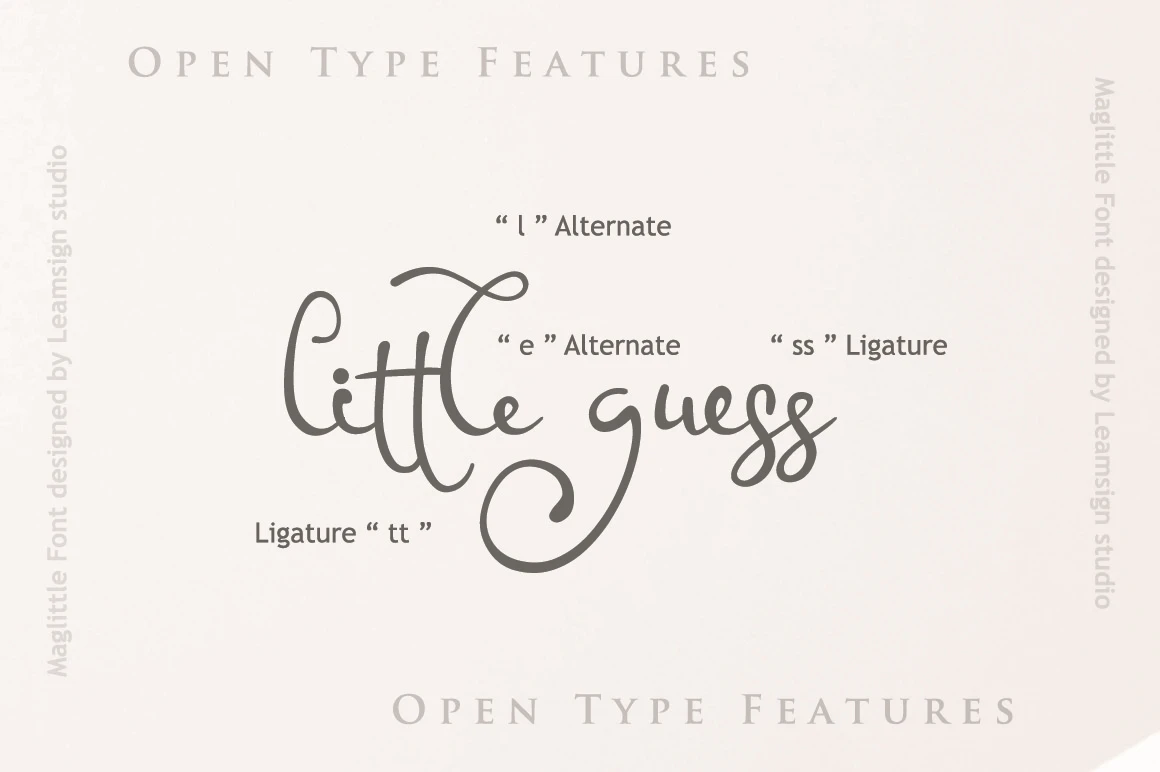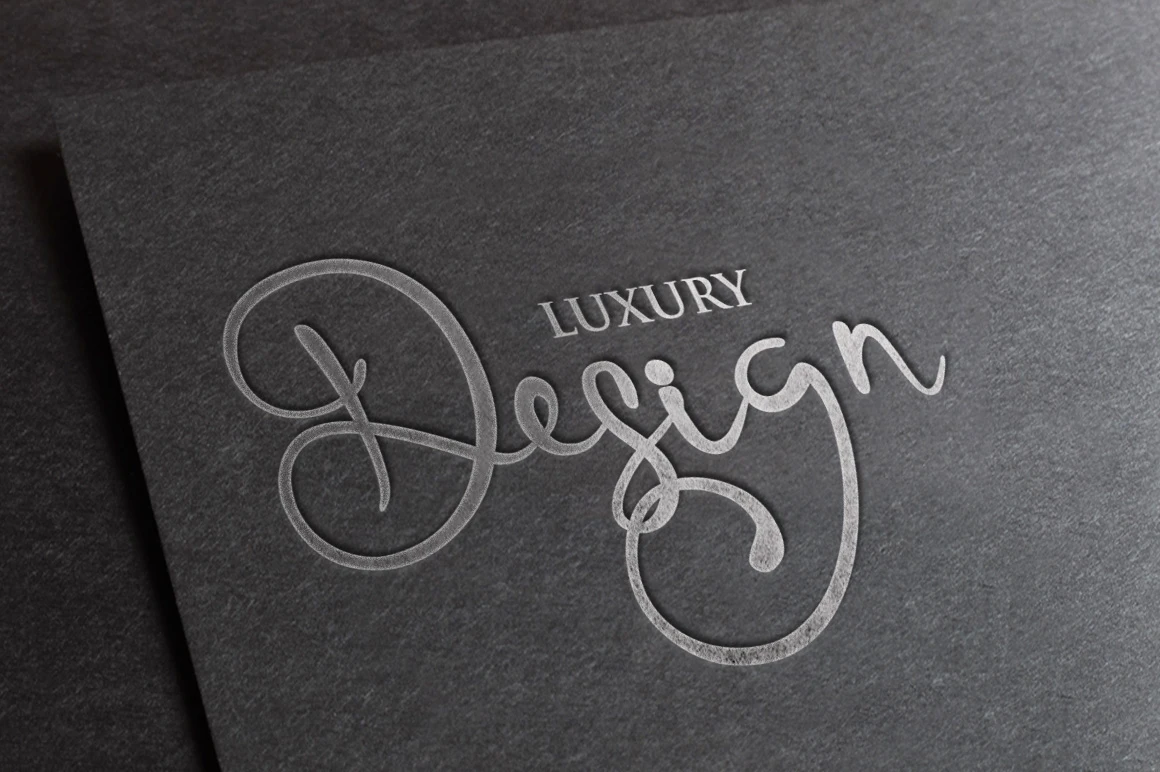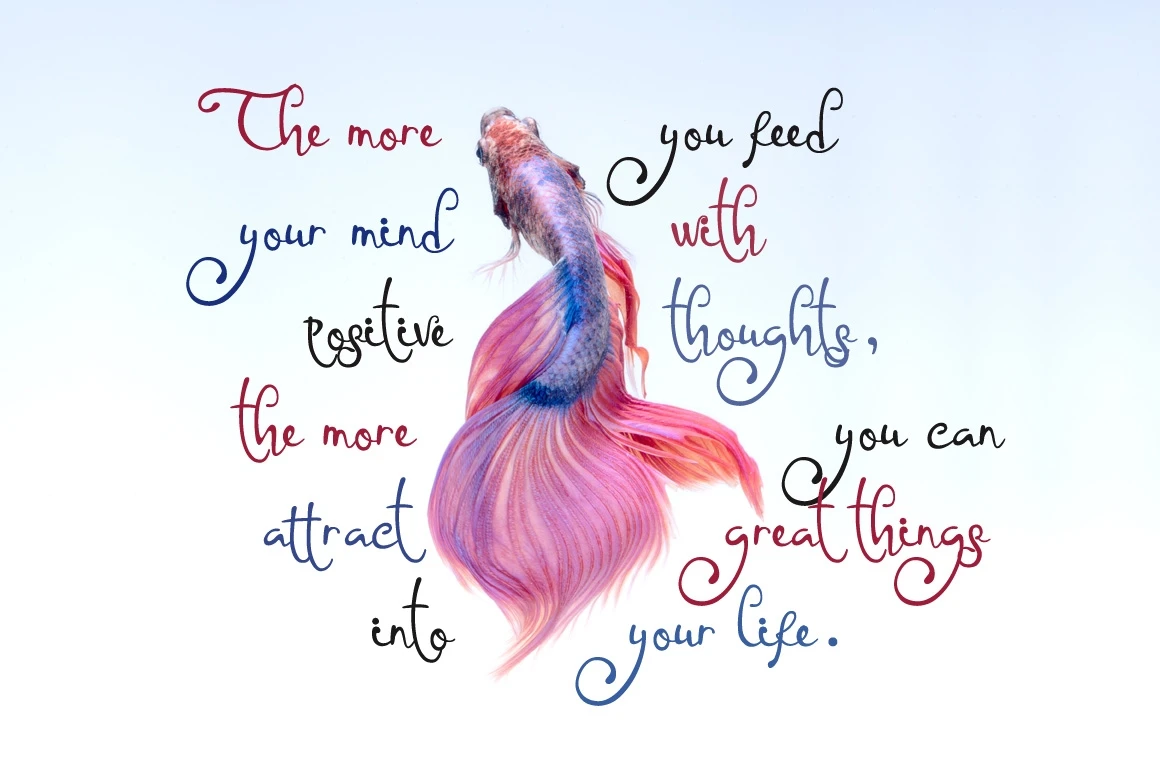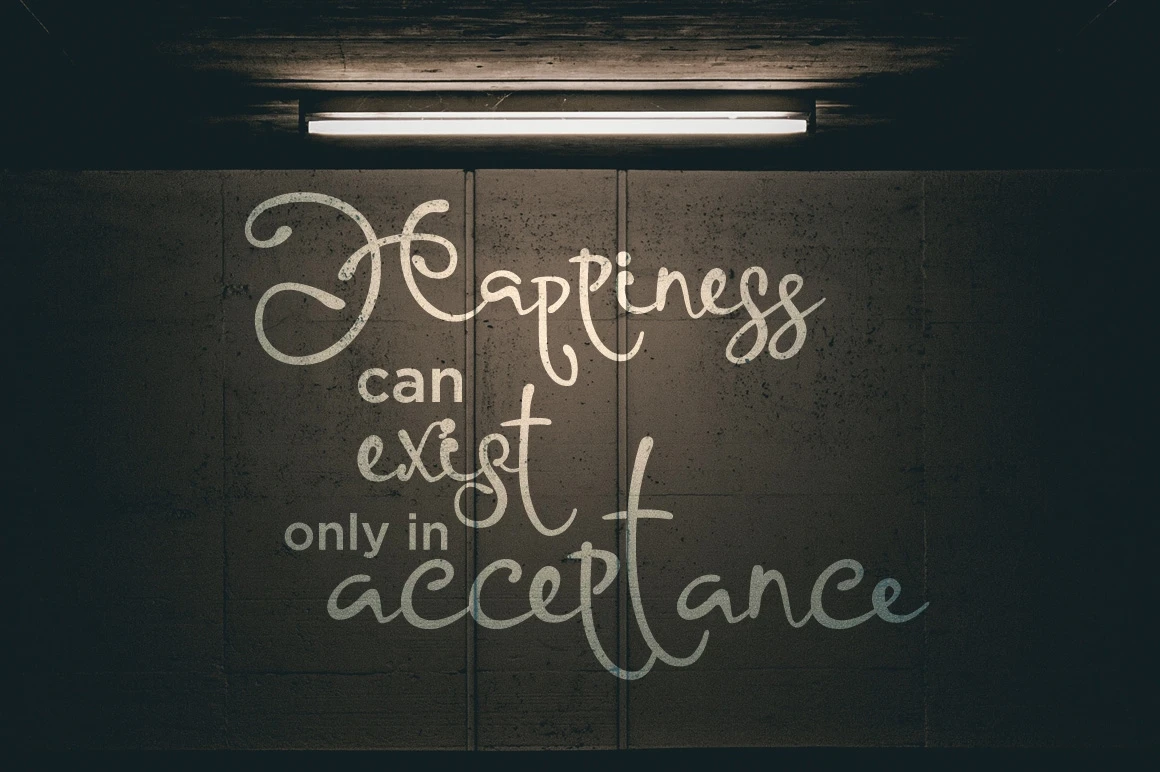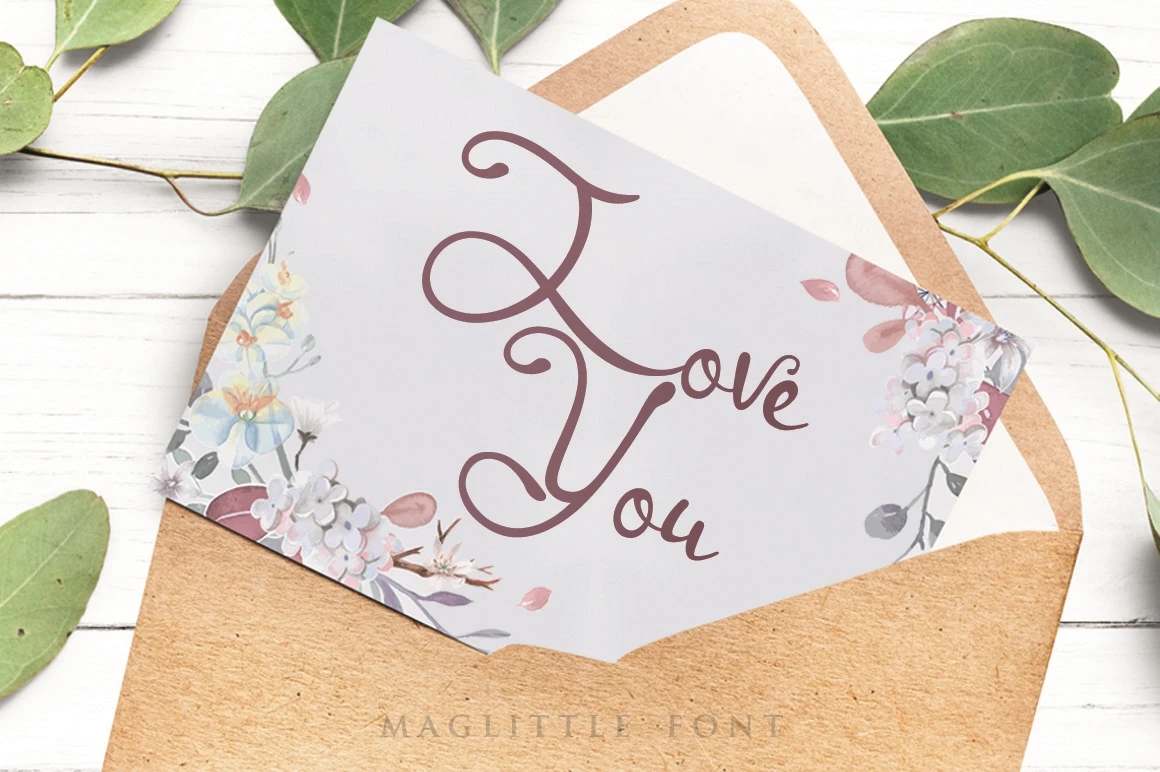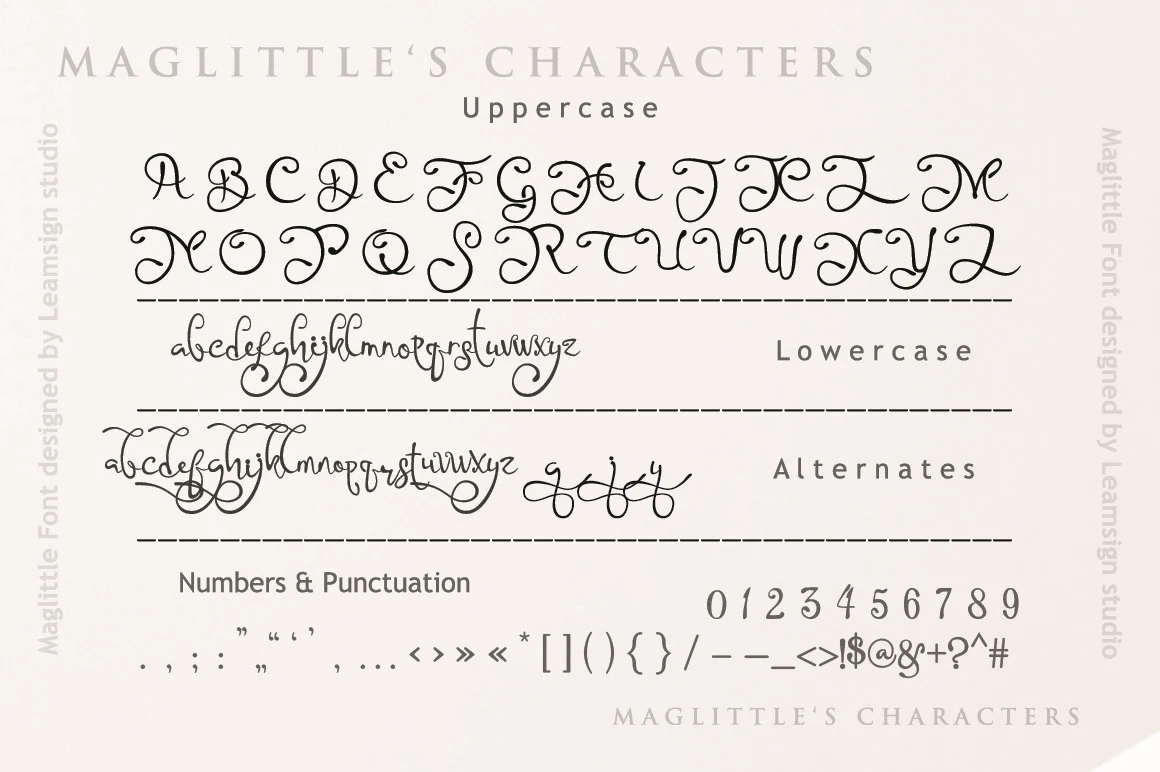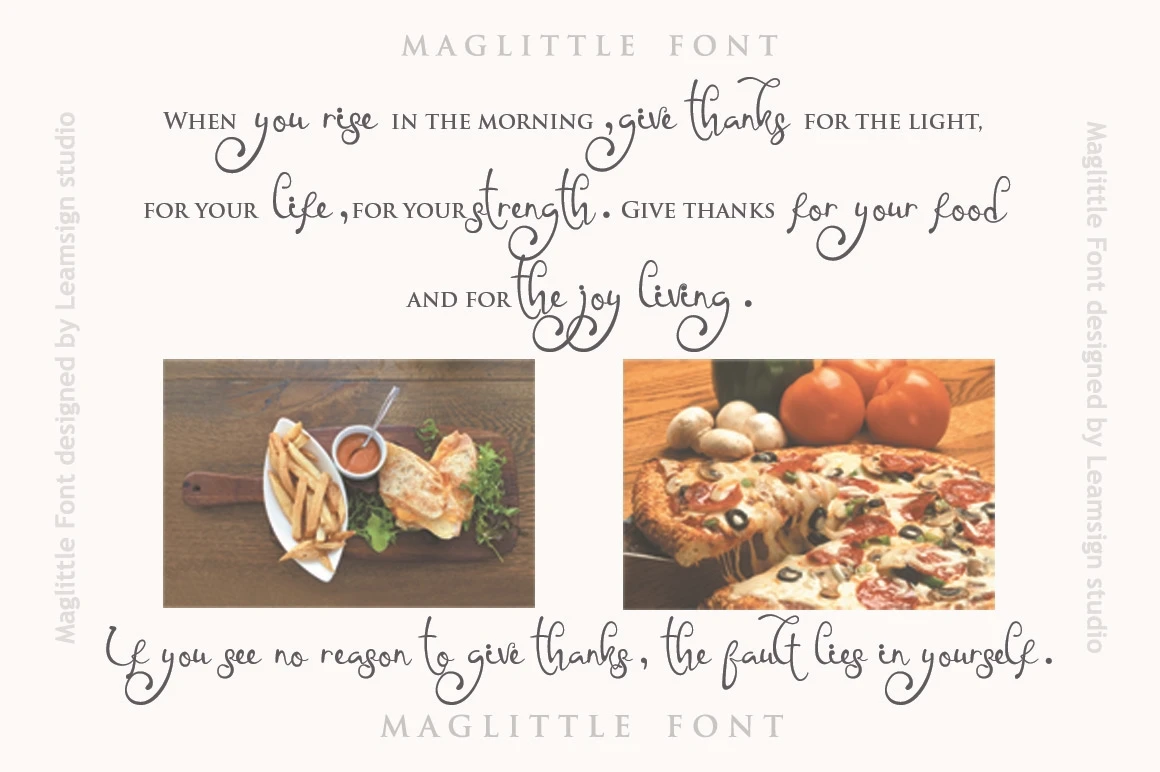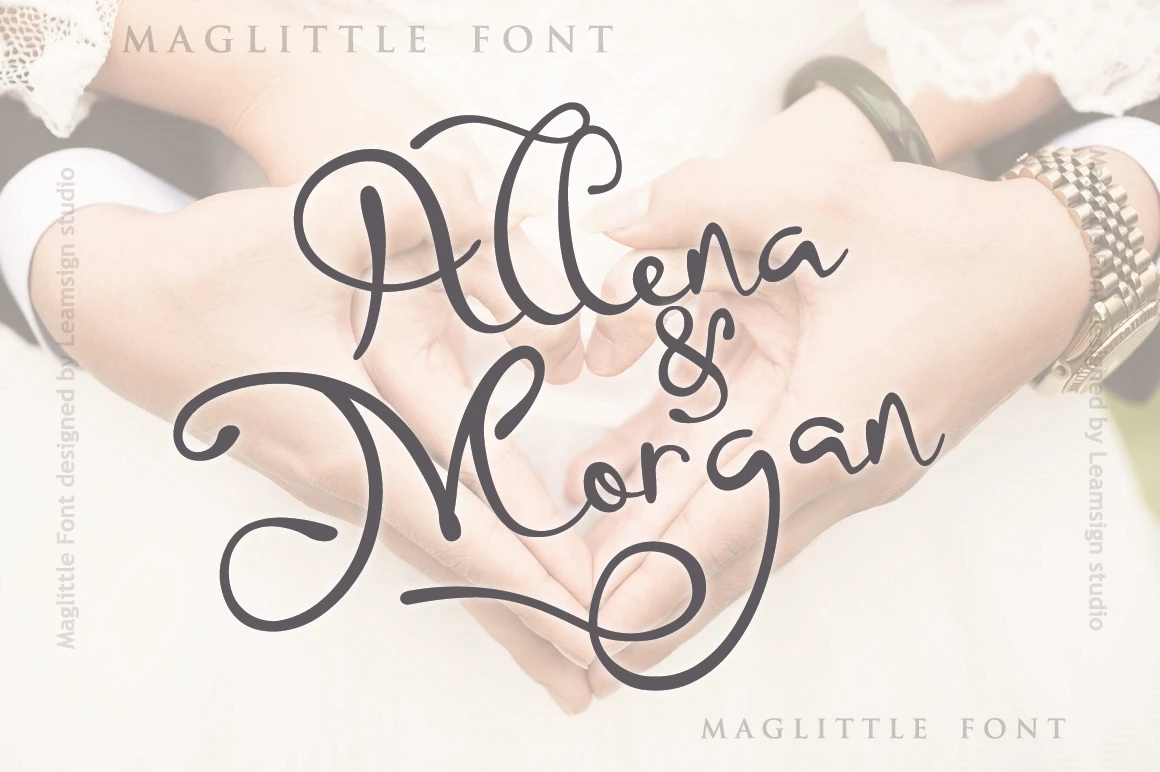
Maglittle is a nice script font with smooth curves, its beauty will present fun feelling in your design projects.
Maglittle font perfect for branding, logos, quotes, headers, product packaging, wedding invites, cards and many other way.
Maglittle's Features :
- Uppercase A-Z
- Lowercase a-z
- Numbers 0-9
- Punctuation
- Custom Ligatures
- Alternates
- Multilingual support